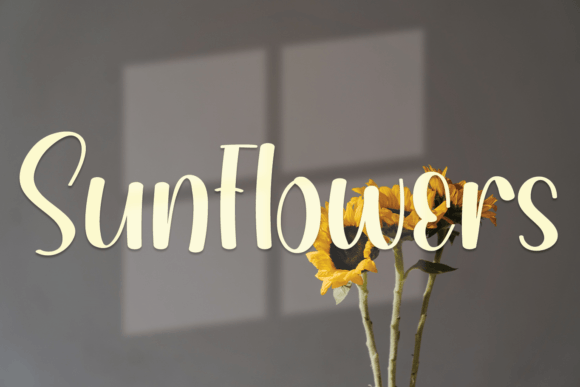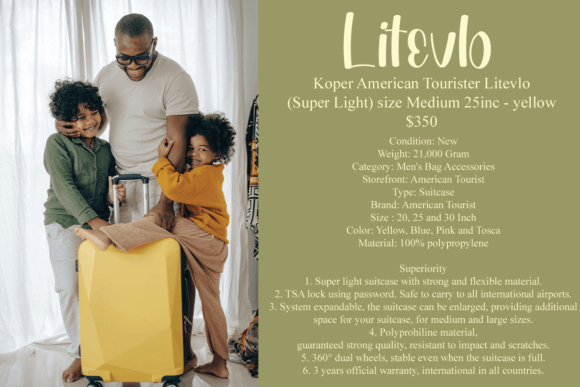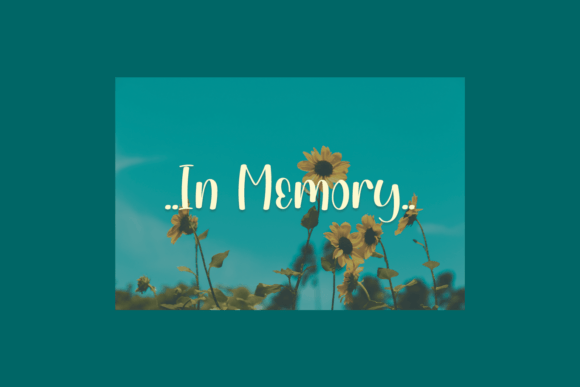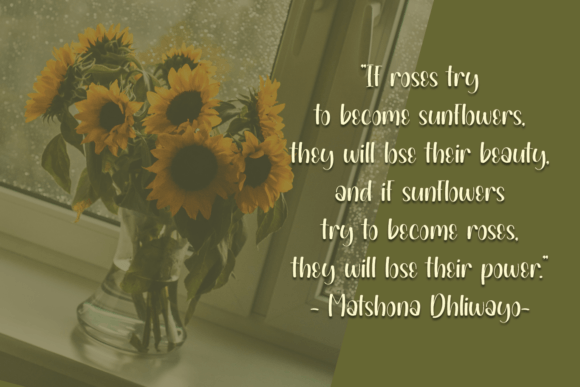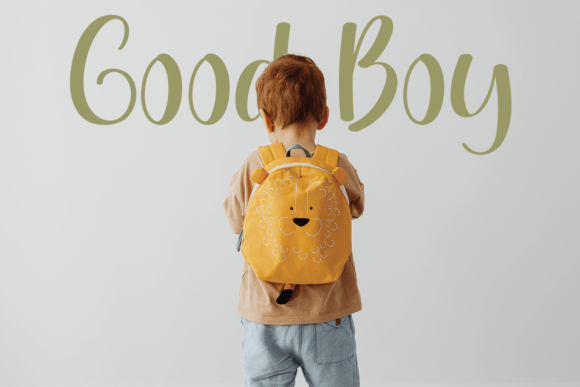
Sunflowers Font
About Sunflowers Font
Sunflowers is a charming and delicate script font that radiates elegance and class. Meticulously crafted, this font is a testament to beauty and freshness, designed to bring a lovely and refined look to your creative projects.
The graceful script of Sunflowers adds a touch of sophistication to any design it graces. Whether you’re working on invitations, branding, or any other creative endeavor, this font is tailored for those who seek a beautiful and refreshing aesthetic. Its delicate strokes and graceful curves contribute to an overall sense of elegance.
More than just a typeface, Sunflowers is a design element crafted for those who appreciate a blend of beauty and simplicity. Its purposeful design allows it to seamlessly integrate into various design contexts, adding a refreshing and timeless quality to your projects.
In summary, Sunflowers is a lovely and delicate script font designed to infuse elegance and class into your designs. Its refreshing look makes it a perfect choice for those seeking a beautiful and refined aesthetic. Choose Sunflowers to add a touch of sophistication and timeless beauty to your creative projects.